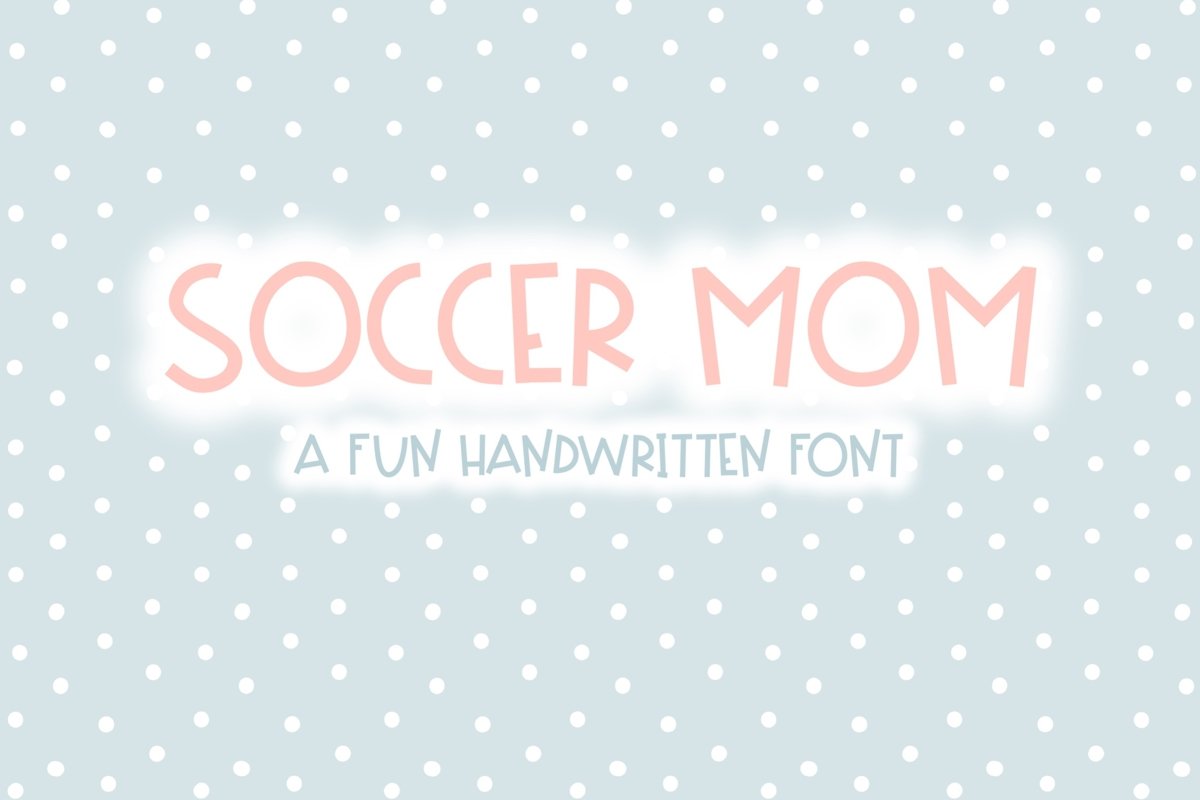
Soccer Mom | Fun Handwritten Font | Bouncy Font
Soccer Mom FONT.
This is a fun, bouncy, hand written font. ***This is entirely in capital letters***
This font is great for creating your own digital artwork, signs, blogs, social media posts, crafts, Cricut machines and so much more!